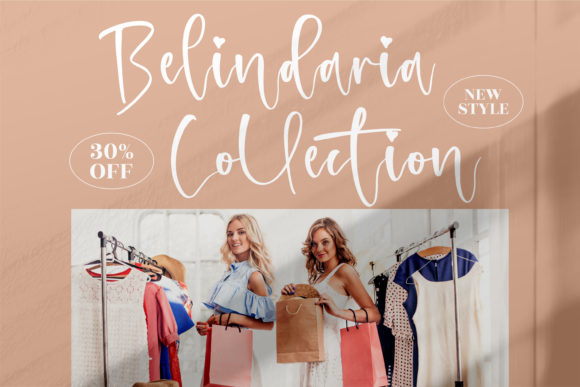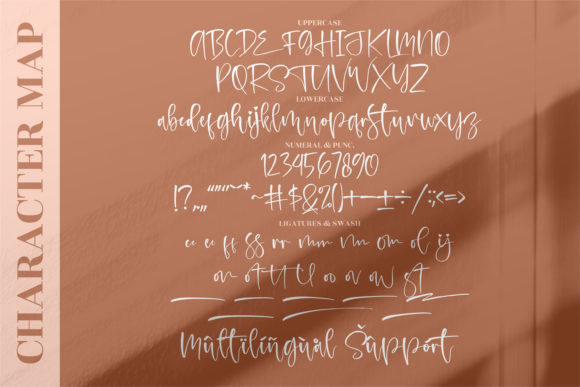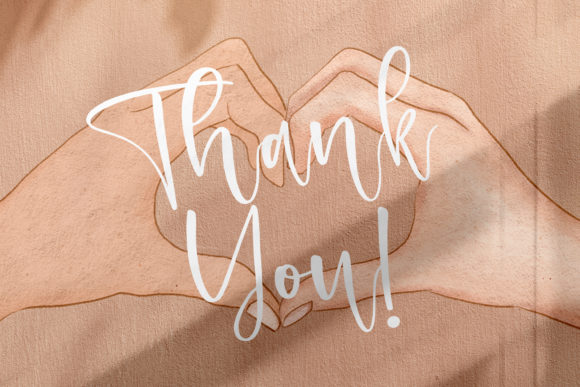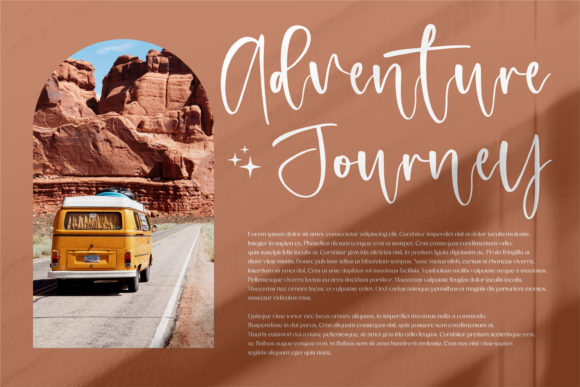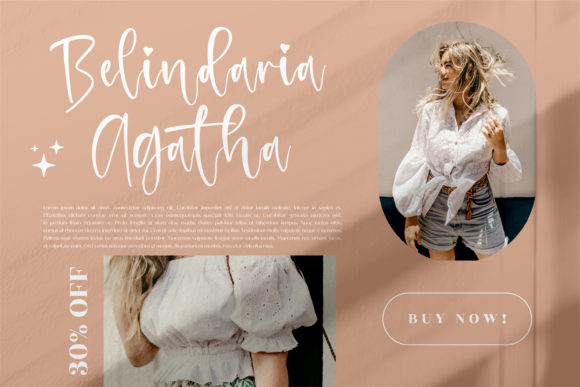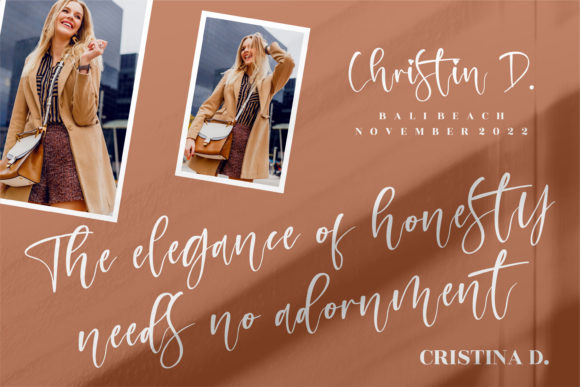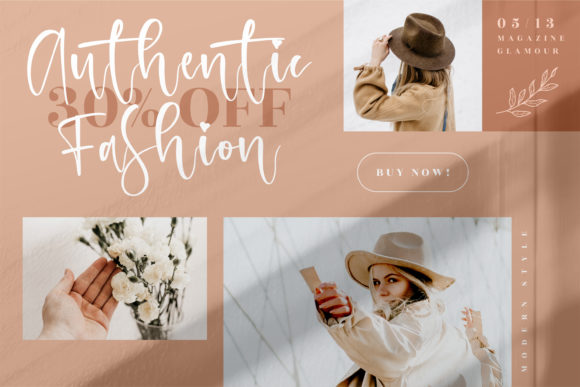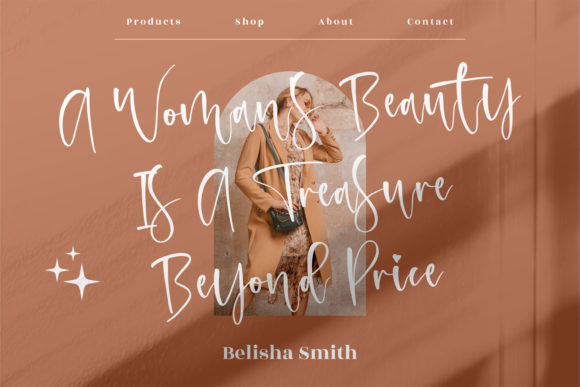
About Melinda Daily Font
Melinda Daily is an exquisite handwritten font, masterfully designed to become a true favorite. It maintains its classy calligraphic influences while feeling contemporary and fresh. Melinda Daily is PUA encoded which means you can access all of the glyphs and swashes with ease!